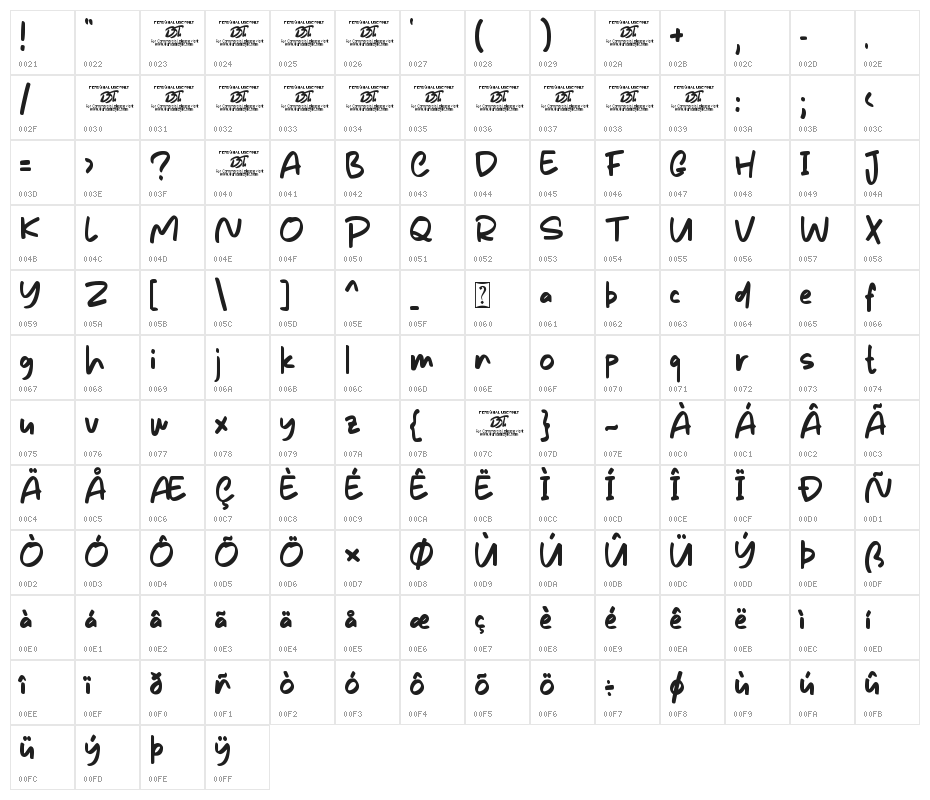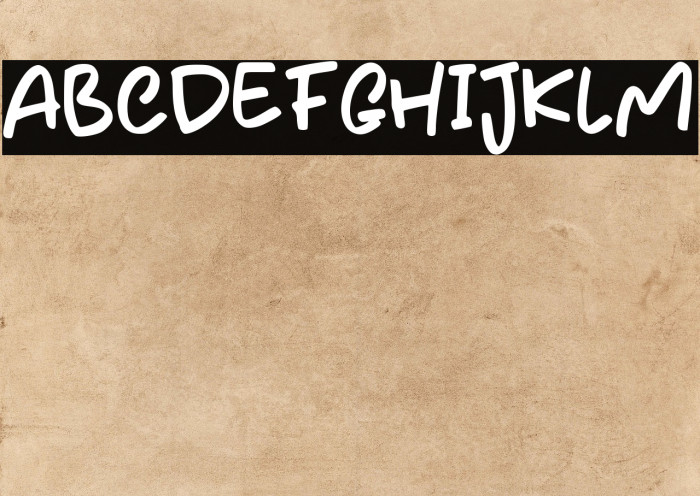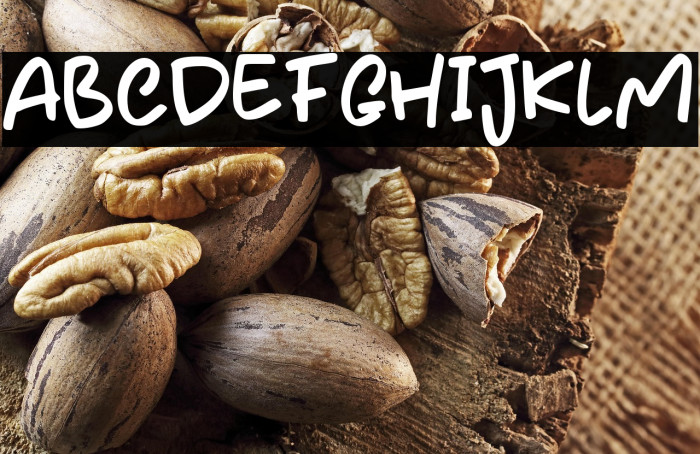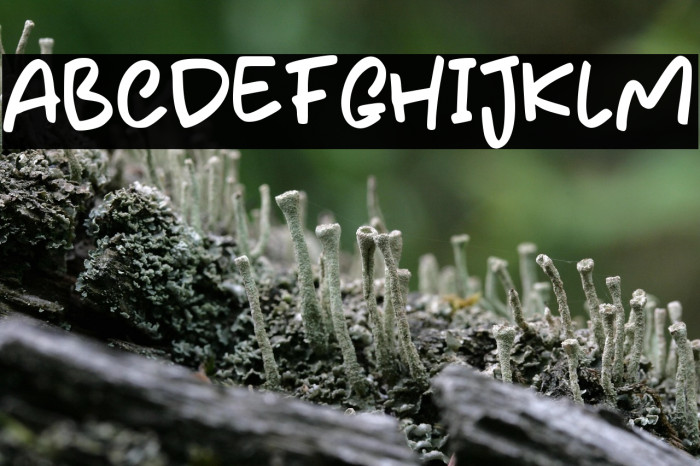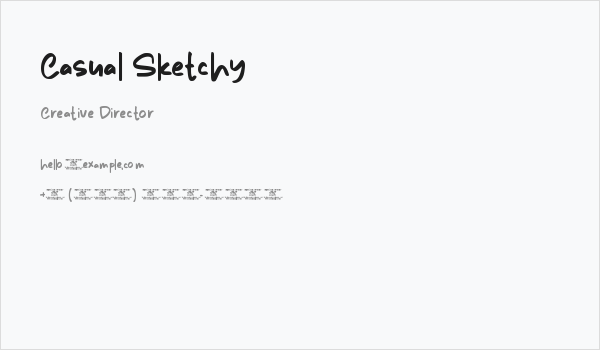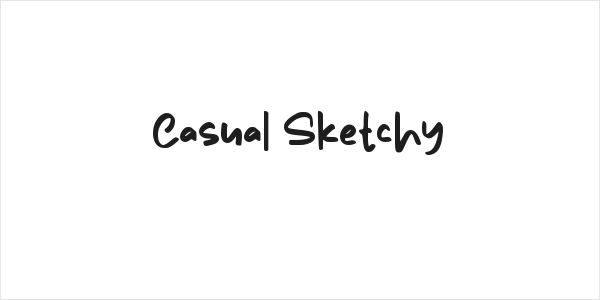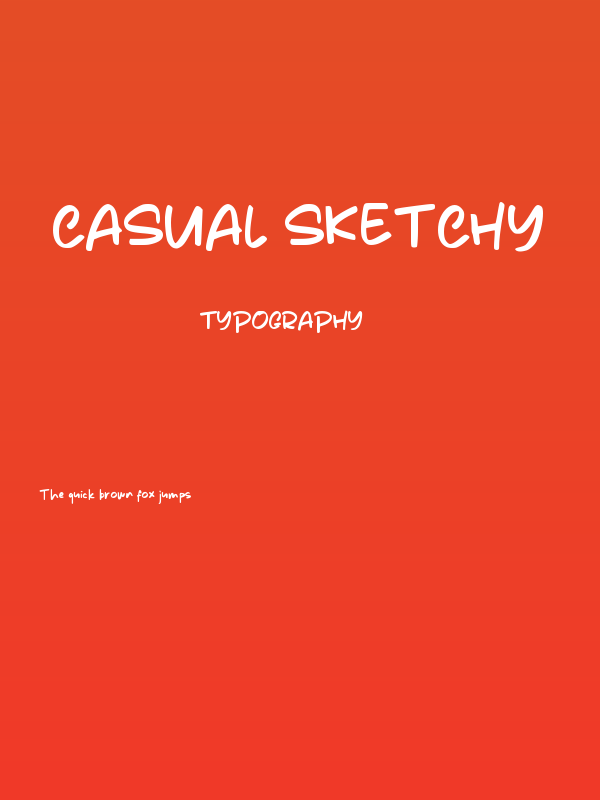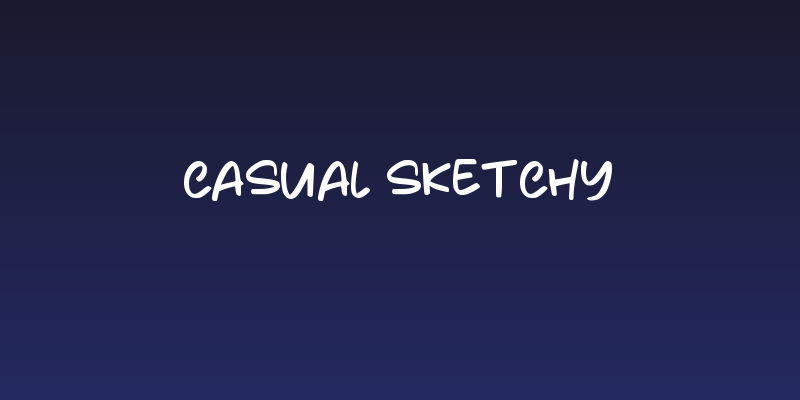
Casual Sketchy Font
Casual Sketchy Description
A casual, sketchy font with a handwritten style, featuring irregular strokes and a playful appearance.
| Proposed Projects | Greeting cards, informal invitations, playful branding. |